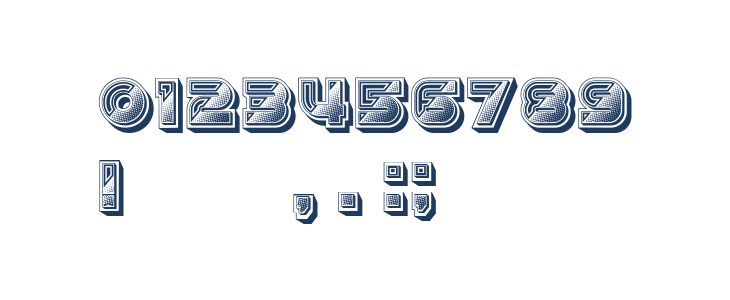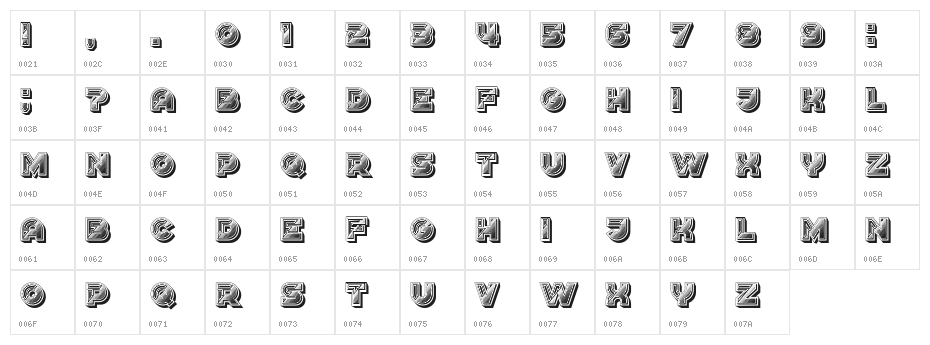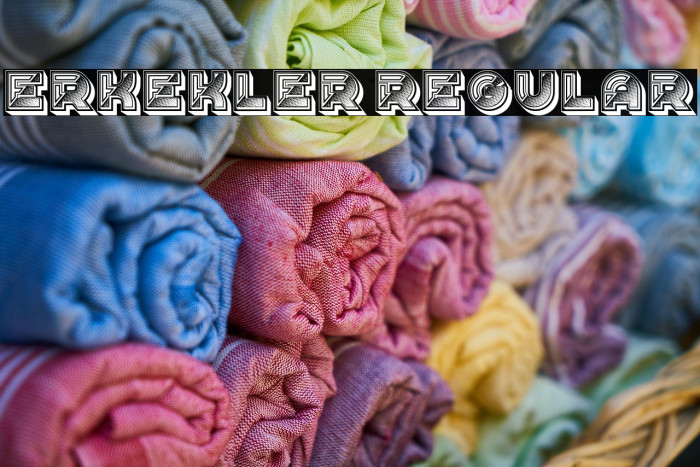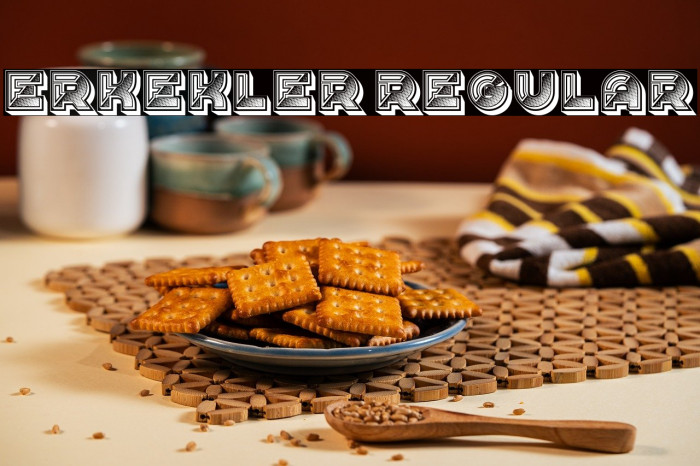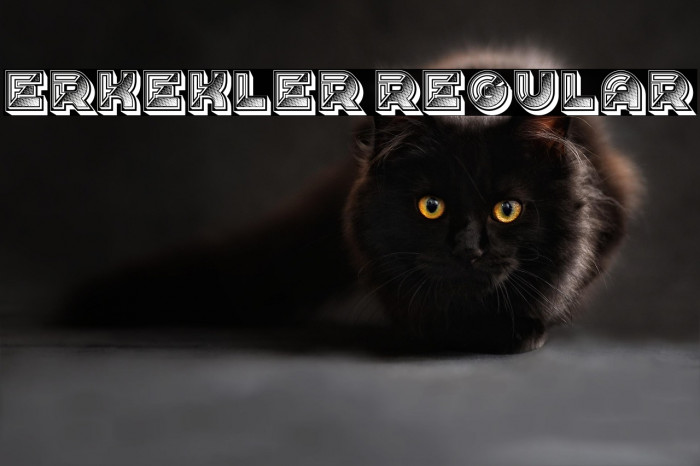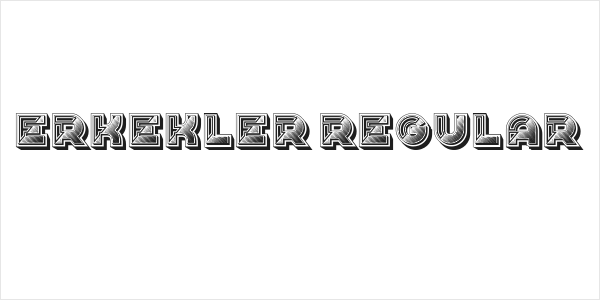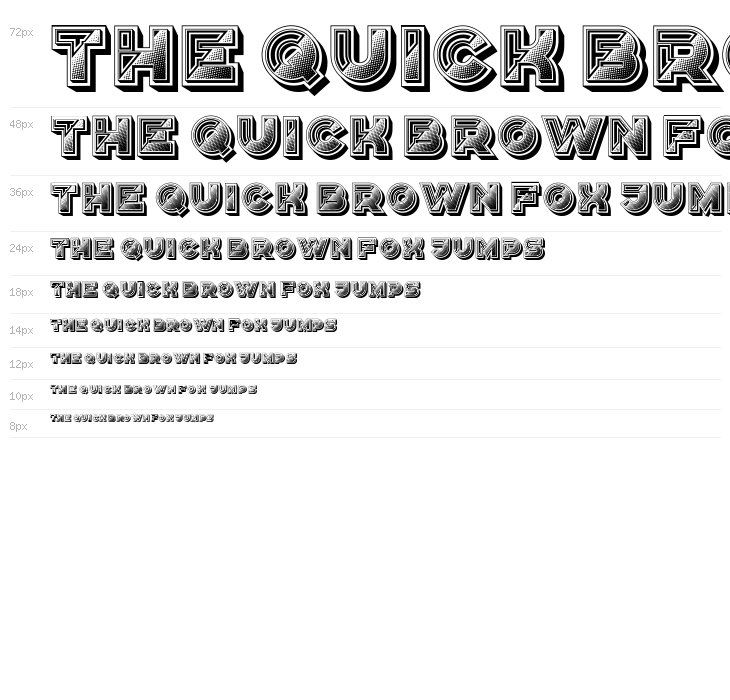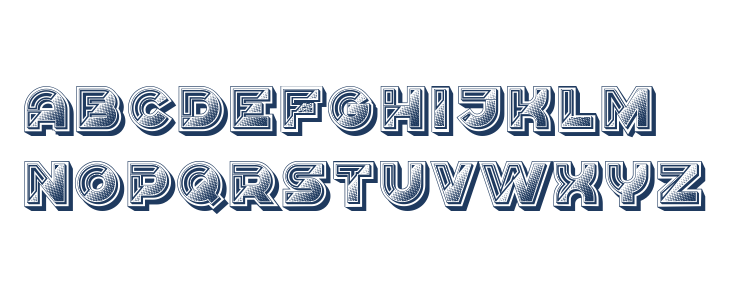
Erkekler Regular Font
Erkekler Regular Description
This font features a bold, decorative style with a three-dimensional effect that gives each character a sense of depth and texture. The letters are outlined with a thick black border, and the interior is filled with intricate patterns that add visual interest. The design is reminiscent of vintage signage or poster art, making it stand out with its unique and artistic flair. The characters are uniformly wide, providing a consistent look across the alphabet. This font is particularly eye-catching and would be suitable for projects that require a strong visual impact.
| Proposed Projects | Ideal for vintage-themed posters, signage, branding, and headlines. |